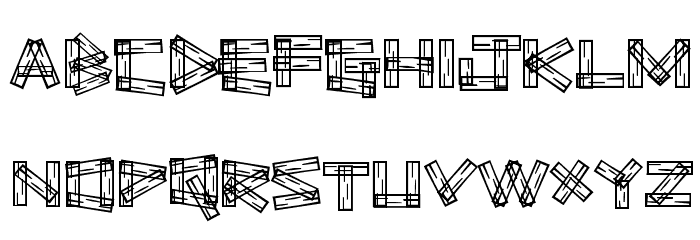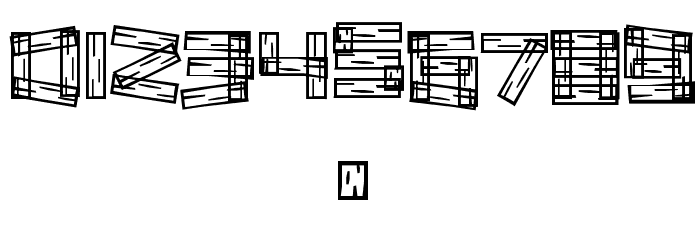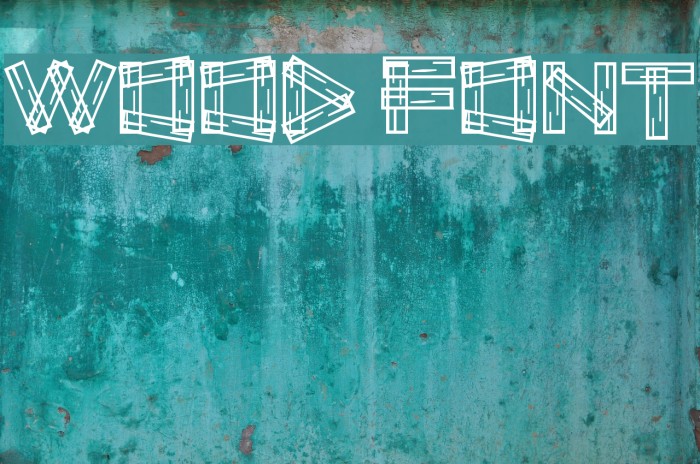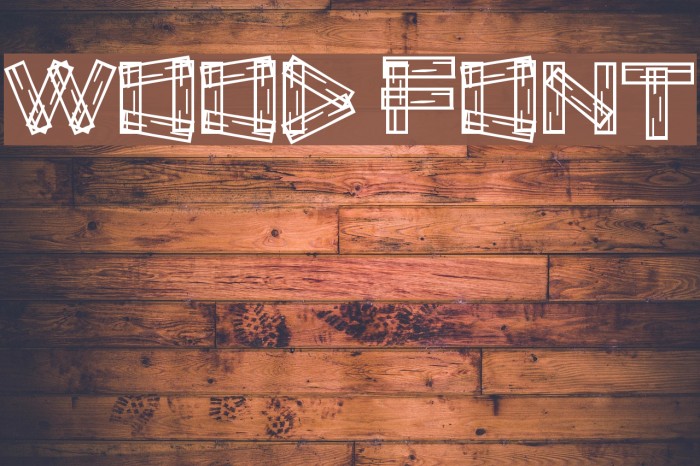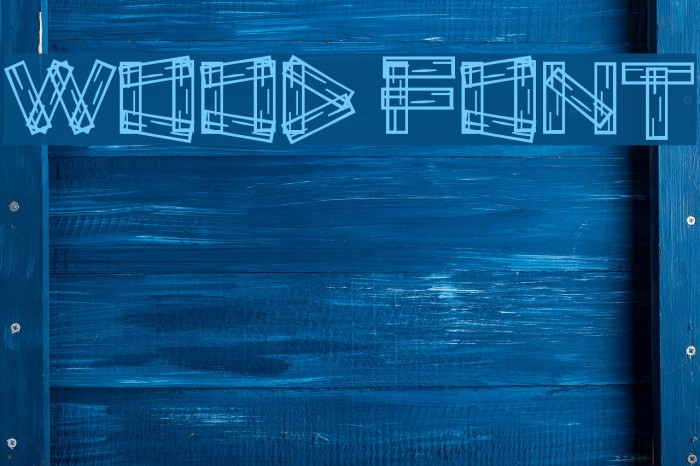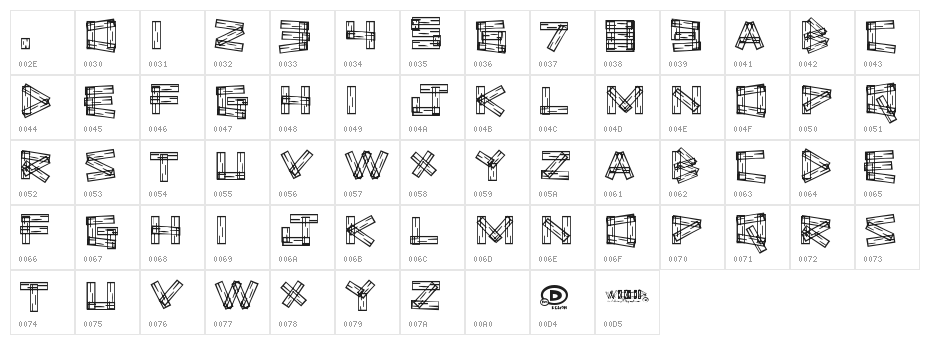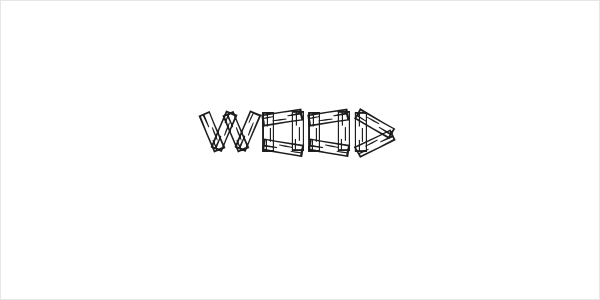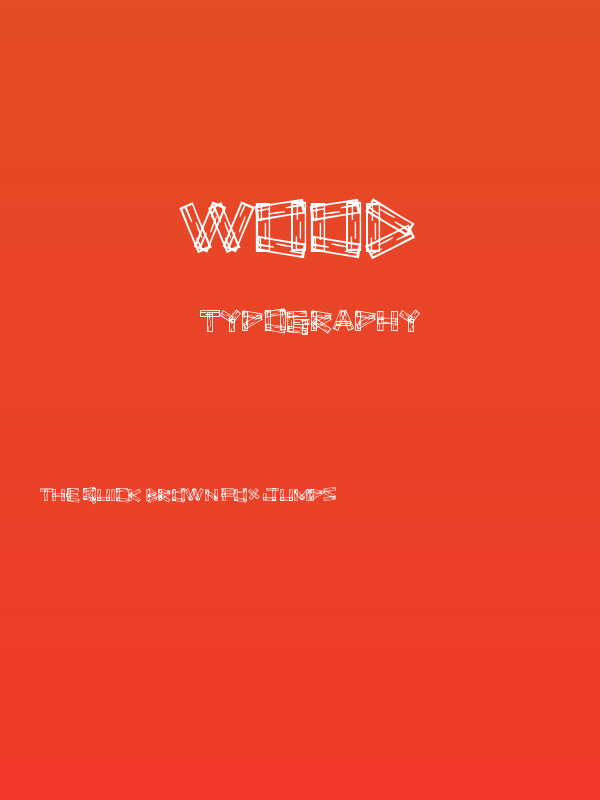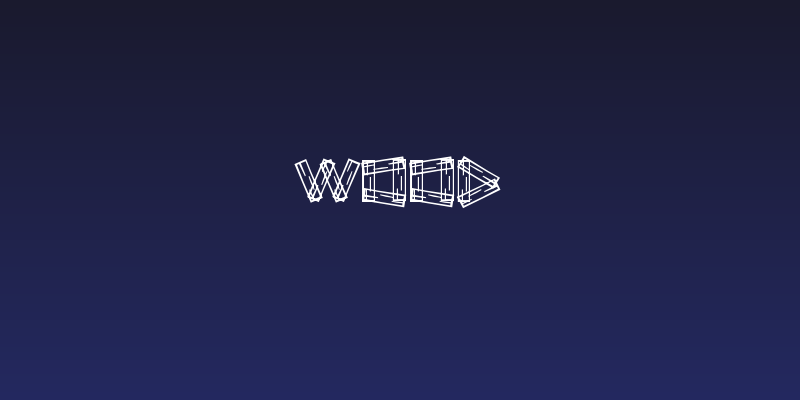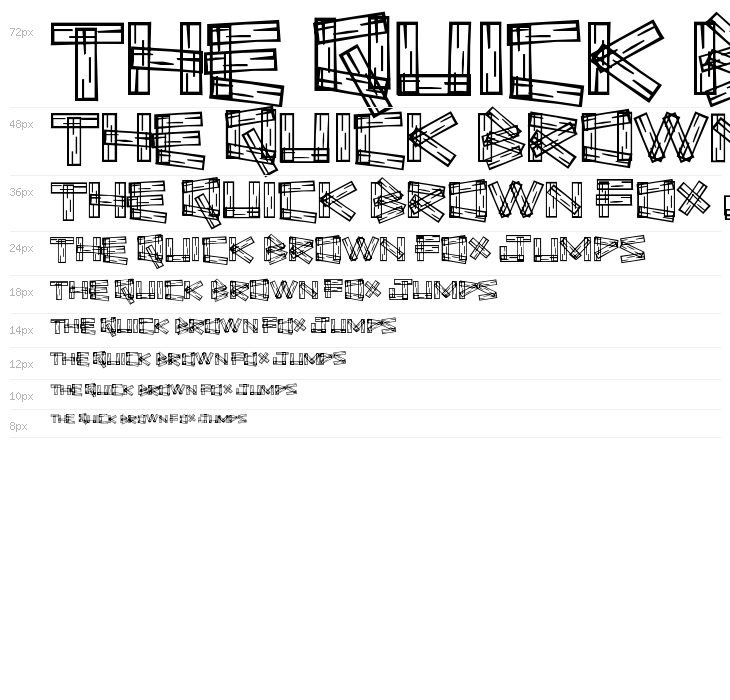
Wood Font
This font features a unique and intricate design that resembles wooden planks arranged to form each character. The letters and numbers are constructed with overlapping lines, creating a textured and layered appearance. The style is highly decorative, with a playful yet structured aesthetic. Each character maintains a consistent width, giving the font a uniform look despite its complex design. The use of straight lines and angles gives it a geometric feel, while the overlapping elements add depth and dimension. This font is ideal for projects that require a rustic or handcrafted look, such as posters, signage, or branding for artisanal products.
A decorative font with a wooden plank design, offering a rustic and handcrafted aesthetic.
- Proposed Projects: Ideal for posters, signage, branding for artisanal products, and any project needing a rustic touch.